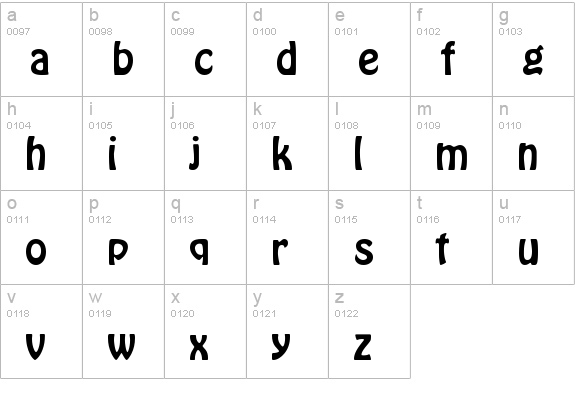
TR Homeward Bound Plain Font Details
TR Homeward Bound Plain font is a versatile and stylish typeface that exudes a sense of elegance and sophistication. With its clean lines and classic design, this font is perfect for a wide range of design projects, from invitations and greeting cards to logos and branding materials. What sets TR Homeward Bound Plain font apart is its timeless appeal and effortless readability. Whether you're looking to create a polished and professional look or add a touch of refinement to your designs, this font is sure to impress. Best of all, TR Homeward Bound Plain font is available for free download at FontsMarket.com. So go ahead and elevate your designs with this beautiful and timeless typeface today!